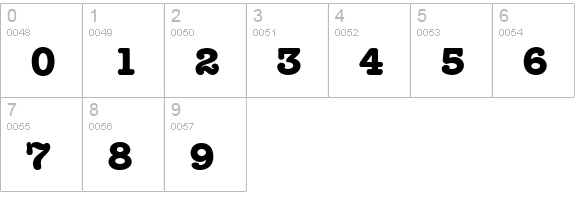
Memorandum Bold Font Details
Memorandum Bold is a strong, high-contrast variant in the Memorandum typeface family \xE2\x80\x94 well suited to headlines, attention-grabbing titles, and strong calls-to-action.
Memorandum Bold font is a modern and versatile typeface that exudes confidence and sophistication. Its bold and impactful design makes it perfect for headlines, titles, and other prominent text in various design projects. The clean lines and distinct letterforms of Memorandum Bold font ensure that your message will be delivered with clarity and style. What sets Memorandum Bold font apart is that it is available for free download at FontsMarket.com. This means that you can easily access this high-quality font for your personal or commercial projects without any cost. Whether you are a designer, a business owner, or a creative individual looking to elevate your projects, Memorandum Bold font is a fantastic choice that won't break the bank. Download Memorandum Bold font today from FontsMarket.com and add a touch of sophistication and professionalism to your designs. Stand out from the crowd with this bold and impactful typeface that is sure to leave a lasting impression.